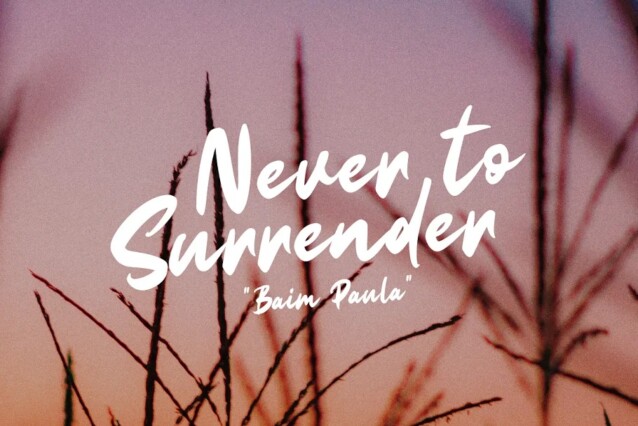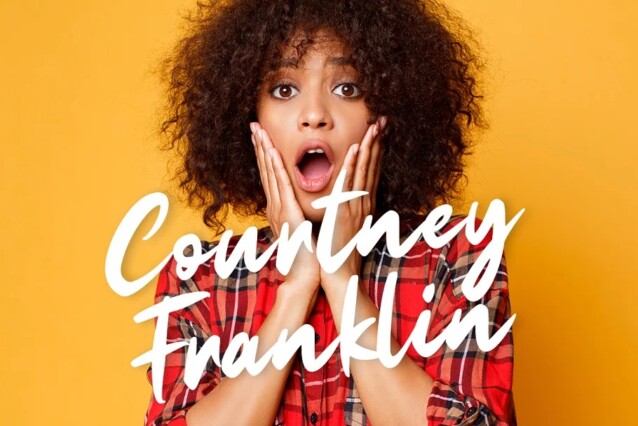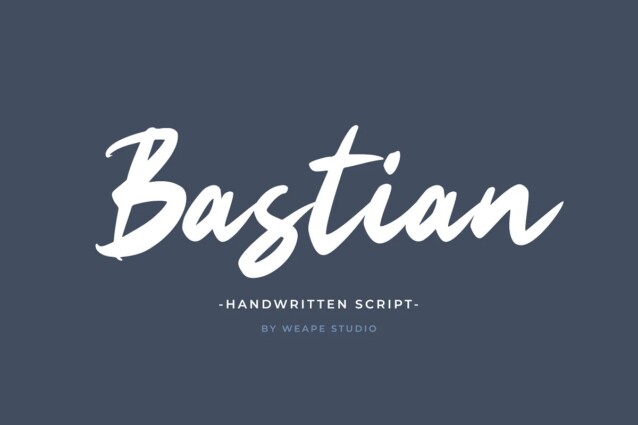
Bastian Font
Bastian Font is a vibrant and spirited typeface that brings a sense of playfulness and creativity to your designs. Bastian is perfect for signature, branding, wedding, fashion, photography title, poster, social media, music album, book cover, packaging, handwritten quotes, greeting cards, and advertising.